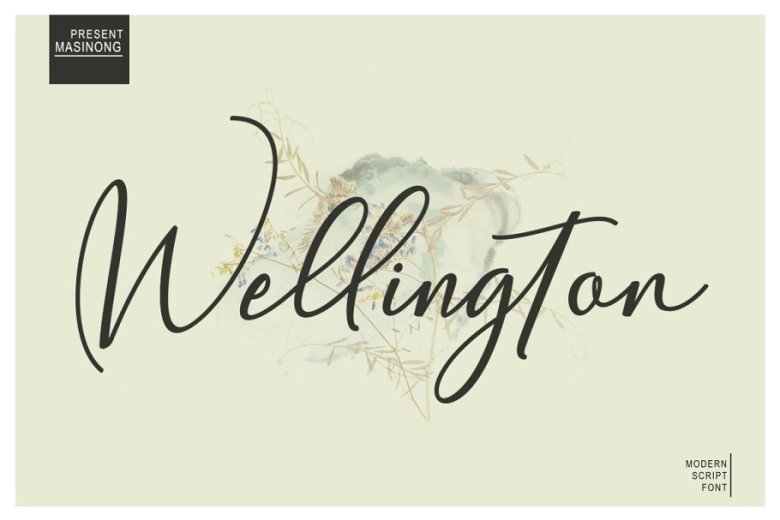
Wellington Calligraphy Font
A new fresh handmade calligraphy font. This modern calligraphy style script font is perfect for any project. I hope you enjoy this font! It was really fun to make. ? Introducing Wellington Font. This is Wellington, simple and easy to create awesome lettering, just type your words and then you will immediately see the great results. Giving style texts that are guaranteed to add an attractive appeal to your logo design, brand image, handwritten quotes, product packaging, merchandise & social media posts.